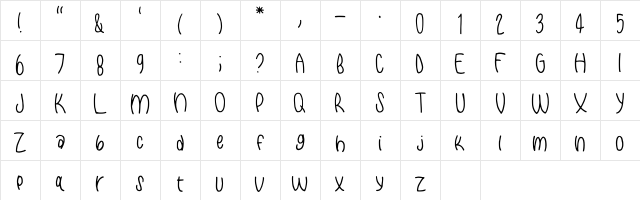
Handwritten Benjamin Regular
Design Context for Handwritten Benjamin Typeface
Handwritten Benjamin flows with the natural rhythm of handwritten lettering, making it ideal for designs that call for warmth and personal expression.
Font Pairing: Combine Handwritten Benjamin with a simple geometric sans for maximum contrast — the tension between flowing curves and clean structure is a classic typographic pairing.
Pro Tip: Use Handwritten Benjamin for short runs of text — names, titles, or taglines. Extended body copy in script faces tires the eye quickly.